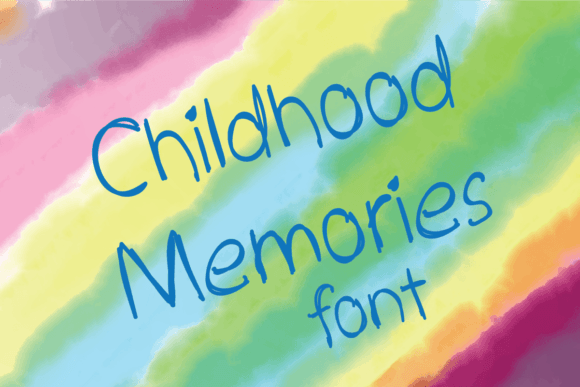
Childhood Memories Font: A Fun and Unique Display Font for Your Creative Projects
Are you looking for a font that can add a touch of nostalgia and playfulness to your creative projects? Look no further than the Childhood Memories Font. This fun and unique display font is perfect for a wide range of applications, from sublimation and greeting cards to advertisements, birthday parties, quotes, titles, brand names, book covers, and more. In this article, we’ll take a closer look at the Childhood Memories Font and explore its features, benefits, and uses.
What is Childhood Memories Font?
Childhood Memories Font is a display font designed to evoke a sense of nostalgia and playfulness. Its unique and attractive design makes it perfect for creative projects that require a touch of whimsy and fun. The font is highly versatile and can be used for a wide range of applications, from digital designs to print materials.
Features of Childhood Memories Font
The Childhood Memories Font has several features that make it stand out from other fonts. Some of its key features include:
• Unique and attractive design: The font has a distinctive design that is sure to grab attention.
• Highly versatile: The font can be used for a wide range of applications, from digital designs to print materials.
• Easy to read: Despite its playful design, the font is easy to read and understand.
• Scalable: The font is highly scalable, making it perfect for use in a variety of contexts, from small icons to large billboards.
Benefits of Using Childhood Memories Font
There are several benefits to using the Childhood Memories Font in your creative projects. Some of the key benefits include:
• Adds a touch of nostalgia and playfulness: The font’s unique design is sure to evoke a sense of nostalgia and playfulness in your audience.
• Perfect for creative projects: The font is highly versatile and can be used for a wide range of creative projects, from digital designs to print materials.
Uses of Childhood Memories Font
The Childhood Memories Font is highly versatile and can be used for a wide range of applications. Some of the most popular uses for the font include:
• Sublimation: The font is perfect for sublimation projects, such as custom t-shirts, mugs, and phone cases.
• Greeting cards: The font is ideal for creating fun and playful greeting cards for special occasions.
• Advertisements: The font’s unique design makes it perfect for use in advertisements, such as flyers, brochures, and posters.
• Birthday parties: The font is perfect for creating fun and playful birthday party decorations, such as banners, invitations, and party favors.
• Quotes and titles: The font is ideal for use in quotes and titles, adding a touch of whimsy and fun to your text.
• Brand names: The font can be used to create unique and memorable brand names that stand out from the crowd.
• Book covers: The font is perfect for use in book covers, adding a touch of playfulness and whimsy to your design.
Tips for Using Childhood Memories Font
Here are some tips for using the Childhood Memories Font:
• Use it sparingly: While the font is fun and playful, it can be overwhelming if used excessively. Use it sparingly to add a touch of whimsy to your design.
• Experiment with colors: The font looks great in a variety of colors, so don’t be afraid to experiment and find the perfect color for your design.
• Pair it with other fonts: The Childhood Memories Font pairs well with other fonts, so try pairing it with a serif or sans-serif font to create a unique and interesting design.
The Childhood Memories Font is a fun and unique display font that is perfect for a wide range of creative projects. Its highly versatile design makes it ideal for use in sublimation, greeting cards, advertisements, birthday parties, quotes, titles, brand names, book covers, and more. With its easy-to-use design and cost-effective pricing, the Childhood Memories Font is a great choice for designers of all skill levels.